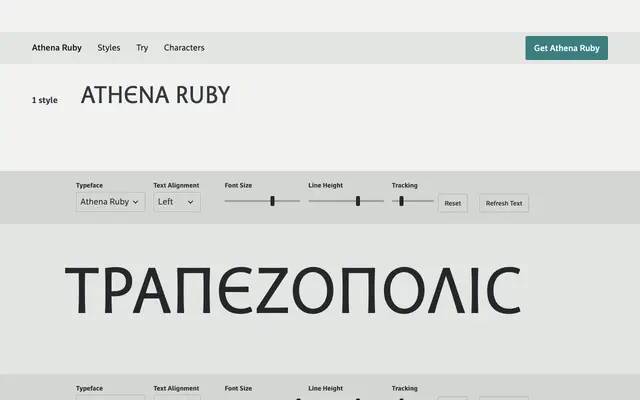
Athena Ruby
A single-style Greek capitals typeface by John Hudson, drawn from variant letterforms catalogued on Byzantine seals and coins, and distributed freely through Dumbarton Oaks Research Library.
Designed by John Hudson for the Dumbarton Oaks Research Library, Athena Ruby encodes an extensive set of letterform variants derived from a systematic cataloguing of Byzantine seal and coin inscriptions led by scholar Joel Kalvesmaki. The result is a specialised all-capitals Greek face with 755 glyphs covering a wide range of historically attested letterform alternates. It is freely available to download and suited to academic, epigraphic and historical publication work.
Athena Ruby is an all-capitals Greek typeface based on letterform variants catalogued from Byzantine seals and coins, making it a specialised epigraphic display face rather than a text or conventional serif.